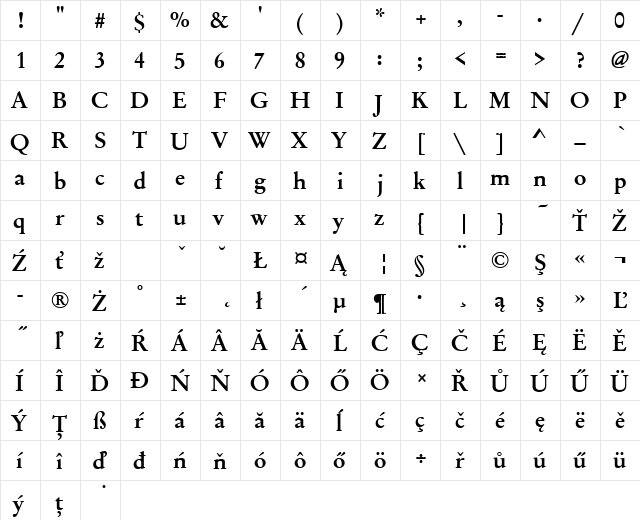
GaramondNo2TEEMed Regular
Design Context for GaramondNo2TEEMed Typeface
GaramondNo2TEEMed is a composed and adaptable typeface that performs quietly and consistently across a wide range of design contexts.